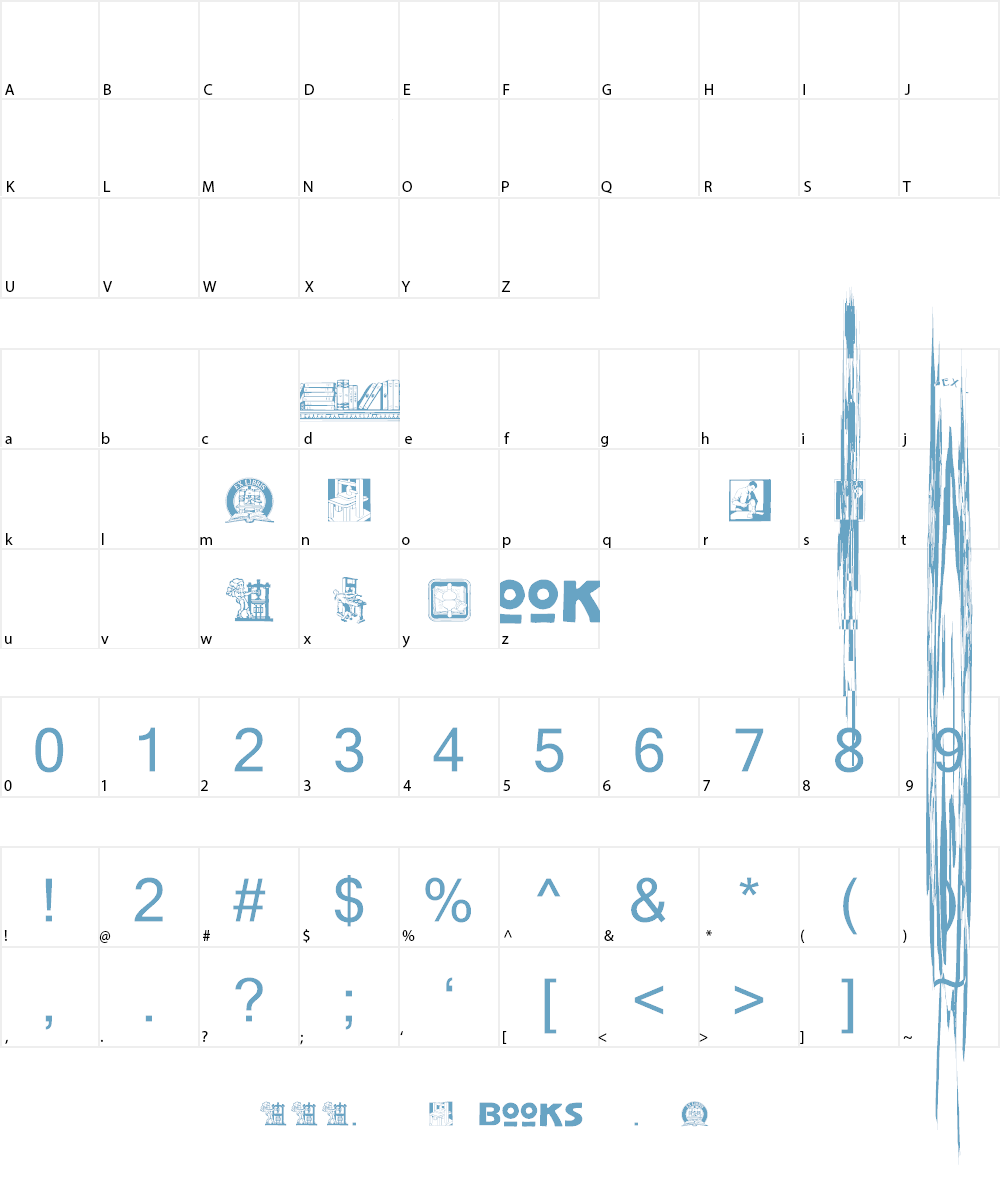
Here it is: the first font at the new domain. A while ago somebody on one of the mailing lists I belong to, asked for a font with book images. This font contains a variety of those. Images of books, bookbinding, printing, and a few beautiful "ex libris" ones. Even a couple of cartoon characters as well. Have fun using it. 26 lowercase characters.